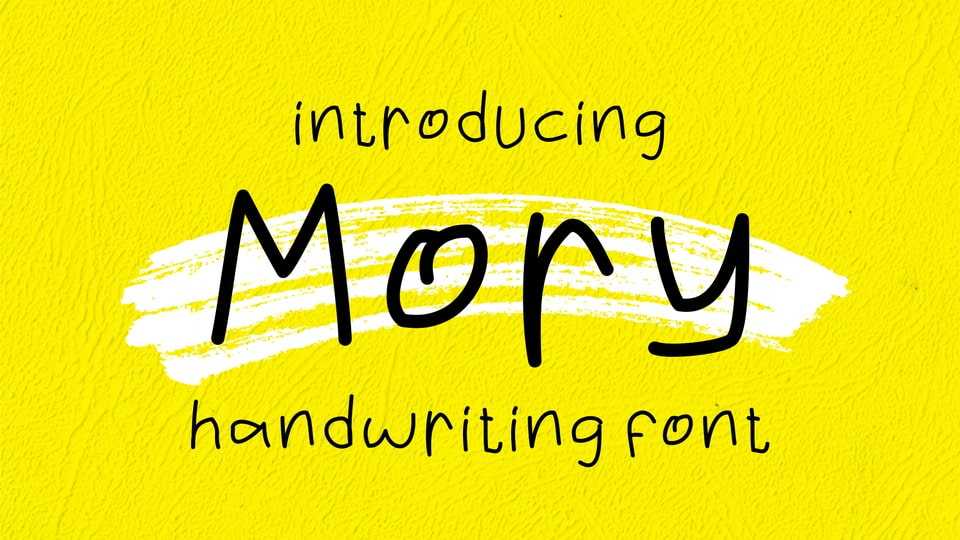
Download Mory font, a simple and quirky handwritten typeface. Its informal style and casual vibe will make Mory font a perfect choice for each of the creations that require a relaxed touch.